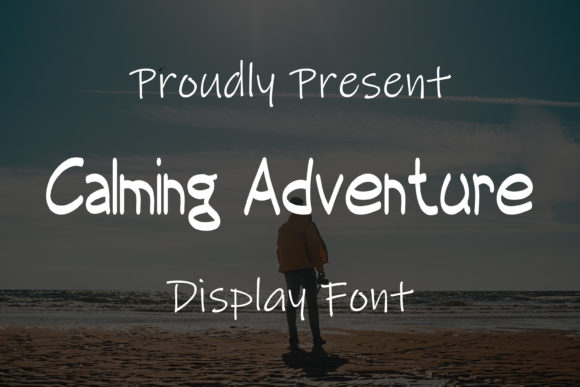
The Ultimate Design Hack: Calming Adventure Font
Ah, the eternal quest for the perfect font! I still remember the time I was working on a project for a client who wanted a fun, yet elegant look. I spent hours scouring through font libraries, but nothing seemed quite right. That was until I stumbled upon the Calming Adventure font. It’s been a game-changer ever since! In this article, I’ll share with you why I love this font, its quirks, and how to make the most of it in your designs.
- ✨ Simple yet cool and fun handwritten look
- ✅ Versatile: works well with various topics and design styles
- 💡 Elevates any creation with its unique charm
- 🎉 Easy to read and understand, even in smaller sizes
While Calming Adventure is an excellent font, it’s not without its limitations. For instance:
- 🤔 Limited availability of stylistic alternates (but still offers a range of OpenType features)
- ⚠️ May not be the best choice for very formal or corporate designs
Calming Adventure was designed with the intention of creating a font that embodies a sense of adventure and freedom. The designer aimed to craft a font that would be both fun and elegant, making it perfect for a wide range of design projects. While the actual design process is shrouded in mystery, it’s clear that the designer succeeded in creating a truly unique and versatile font.
| Font Name | Calming Adventure Font |
| Author | scriptstrategy |
Q: What type of projects is Calming Adventure best suited for?
A: Calming Adventure is a versatile font that can be used for various projects, including creative, artistic, and even some corporate designs.
Q: Is Calming Adventure a difficult font to read?
A: No, Calming Adventure is designed to be easy to read and understand, even in smaller sizes.